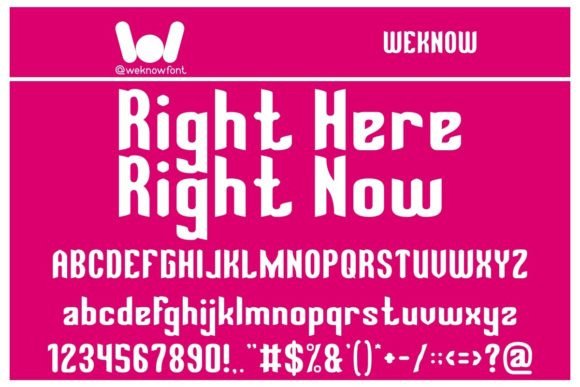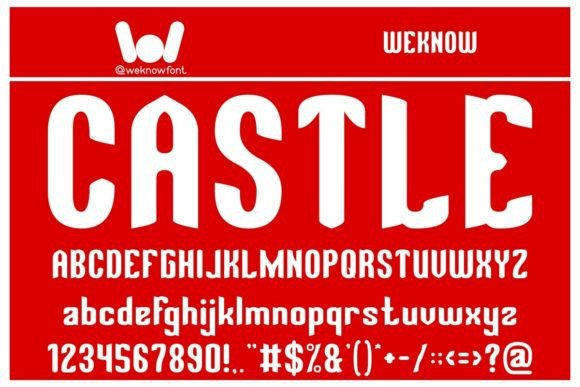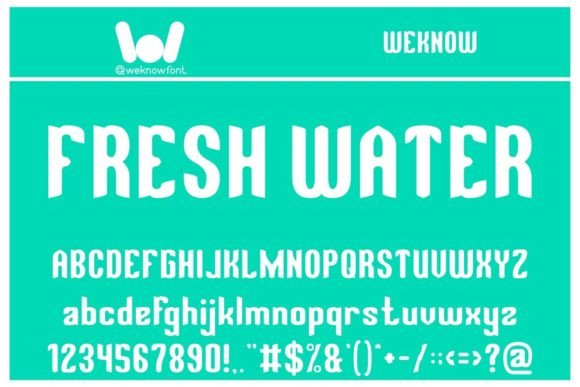
Introduction to Fragrance Font
Fragrance is a fancy various display font, suitable for a logo, logotype, headline, corporate identity, brand identity, apparel industry, poster, music, movie, game, magazine, book, comic, cartoon, YouTube, Instagram, website, or any of your creative design projects.
Key Features of Fragrance Font